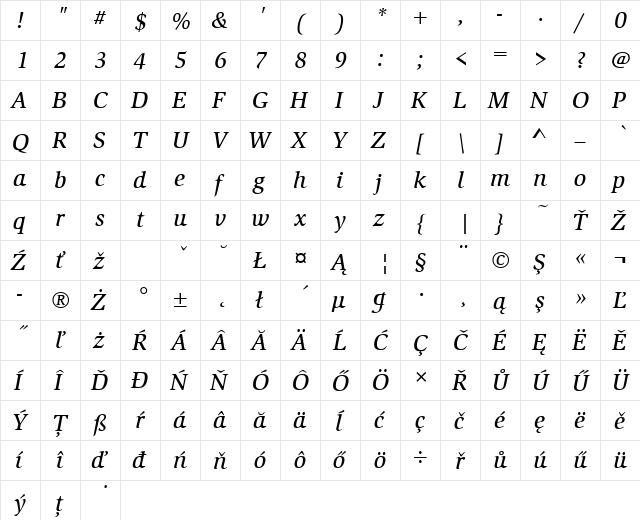
SlimbachItcTEEMed Italic Font Preview
SlimbachItcTEEMed Italic
SlimbachItcTEEMed Italic Font Details
Design Context for SlimbachItcTEEMed Typeface
SlimbachItcTEEMed is a composed and adaptable typeface that performs quietly and consistently across a wide range of design contexts. The slanted form adds forward momentum and visual energy.
Pro Tip: Try SlimbachItcTEEMed for annotation and caption copy alongside an upright companion — the contrast in angle creates a dynamic but ordered typographic system.